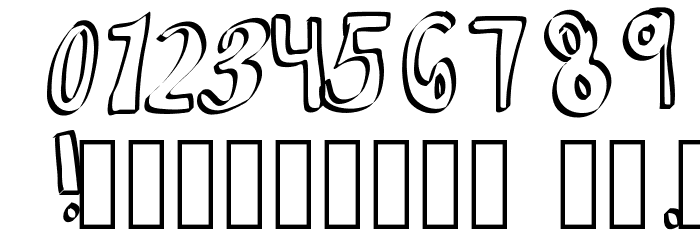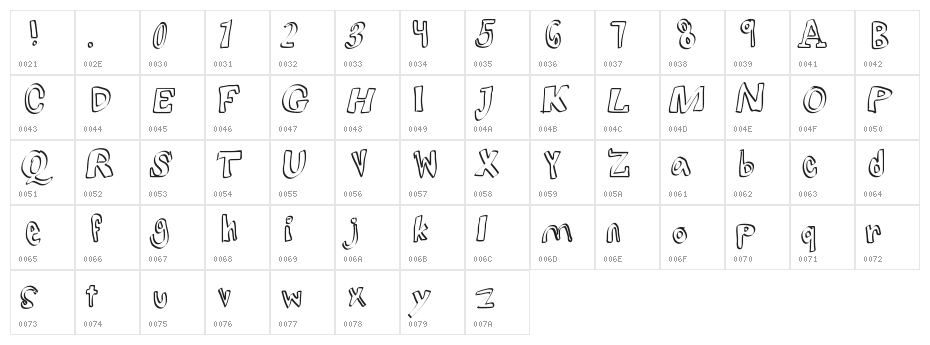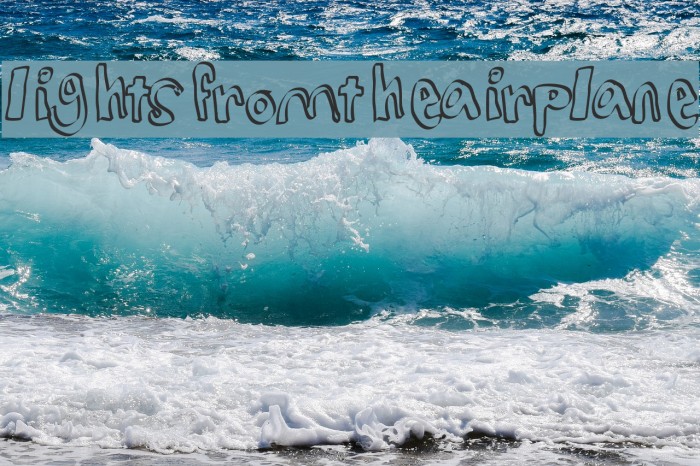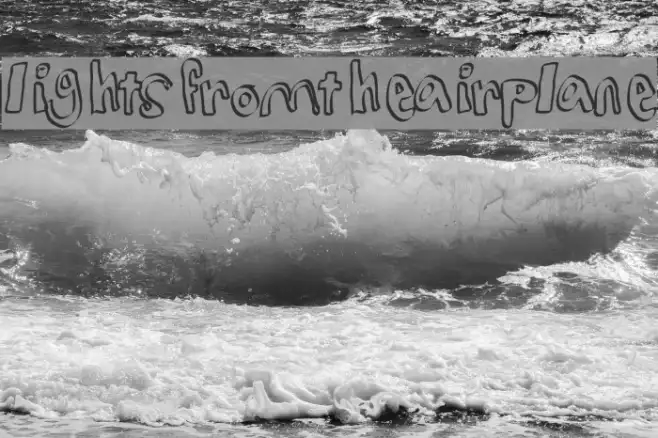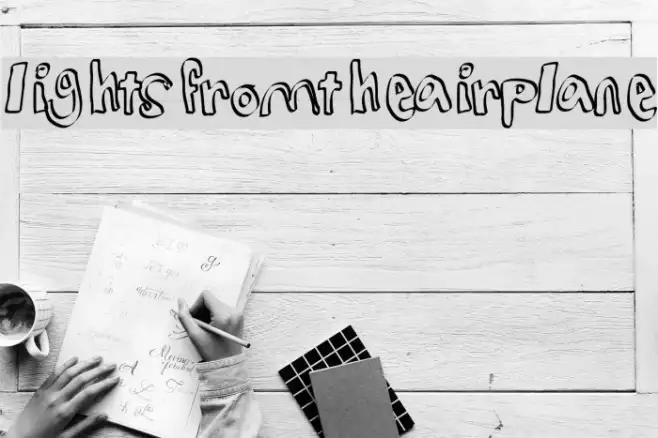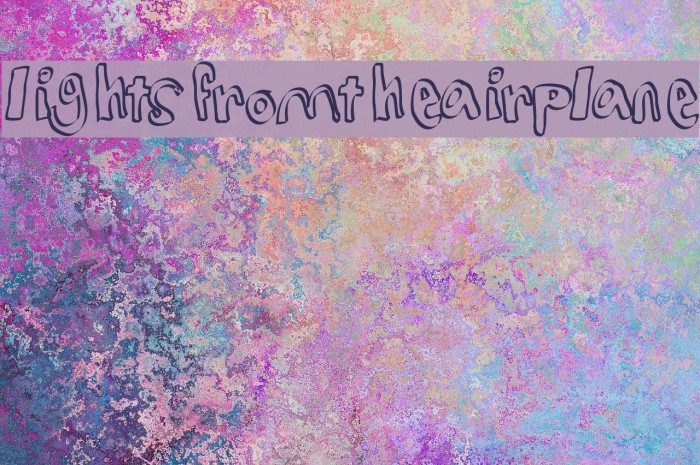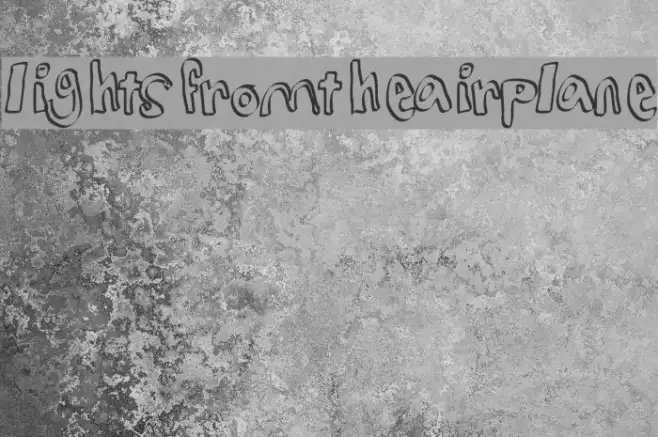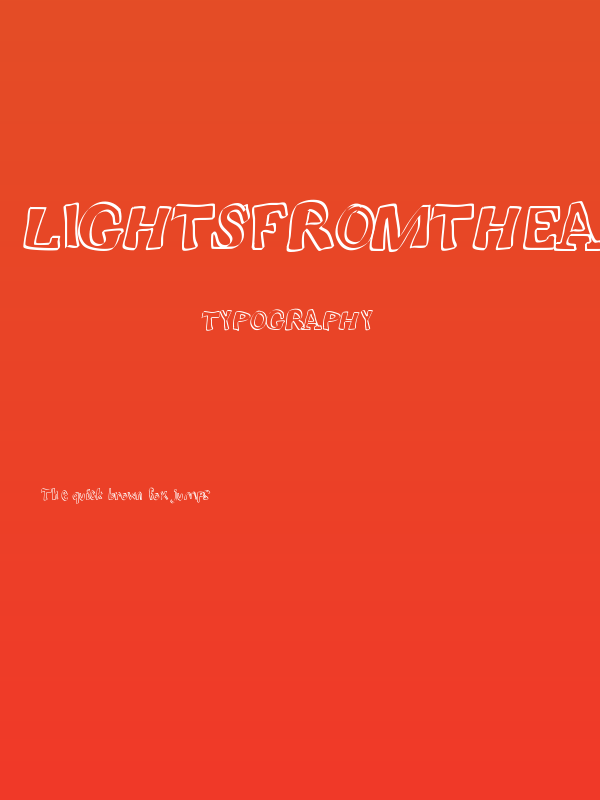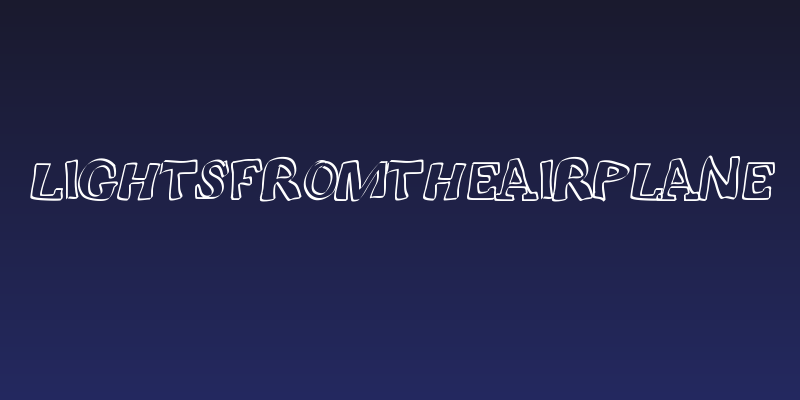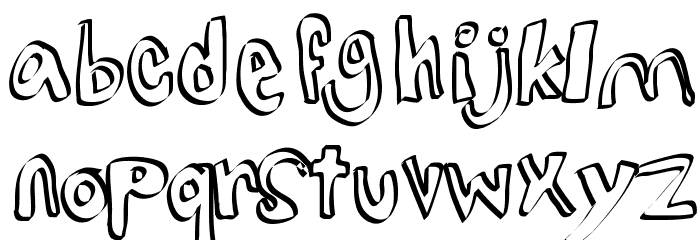
lightsfromtheairplane Font
lightsfromtheairplane Description
This playful and dynamic font features bold, hand-drawn characters with a whimsical touch. Each letter is outlined with a thick stroke, creating a sense of depth and movement. The uppercase letters are slightly more structured, while the lowercase letters exhibit a more casual, freeform style. Numbers and special characters maintain the same lively aesthetic, making this font ideal for projects that require a fun and engaging look. The irregular shapes and varying line thicknesses add to its charm, making it suitable for creative and informal designs.
| Proposed Projects | Ideal for children's books, comic strips, playful branding, and creative posters. |